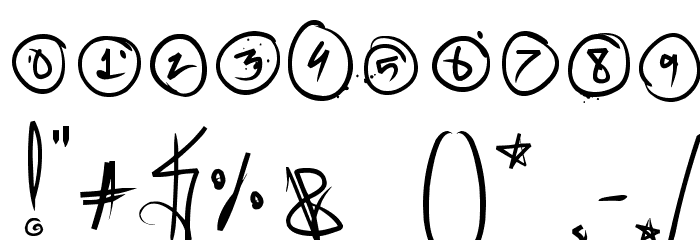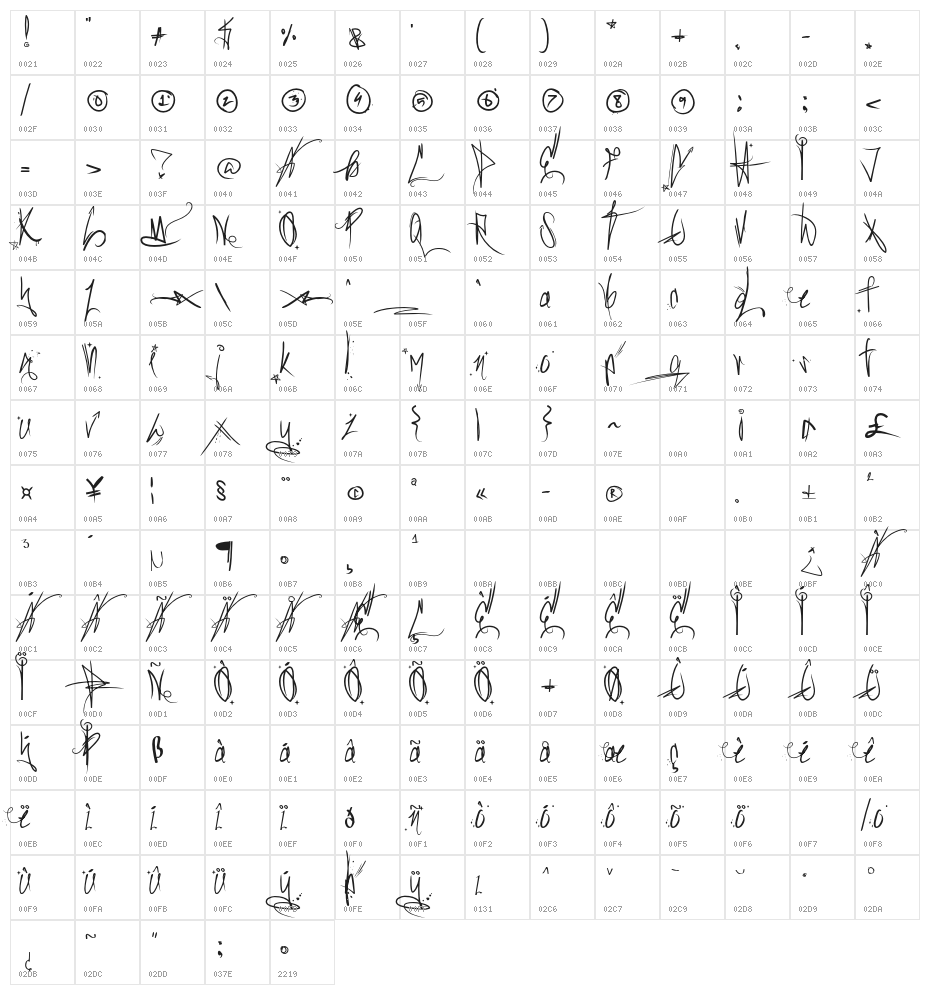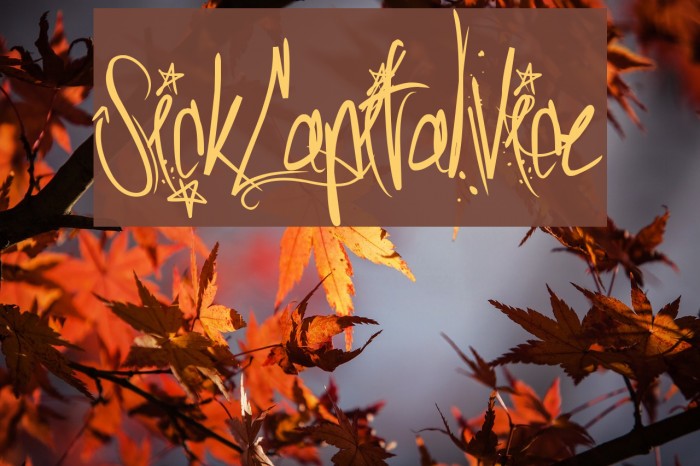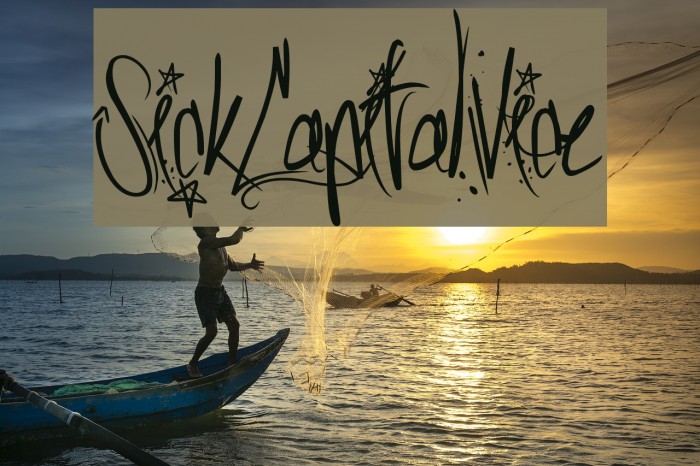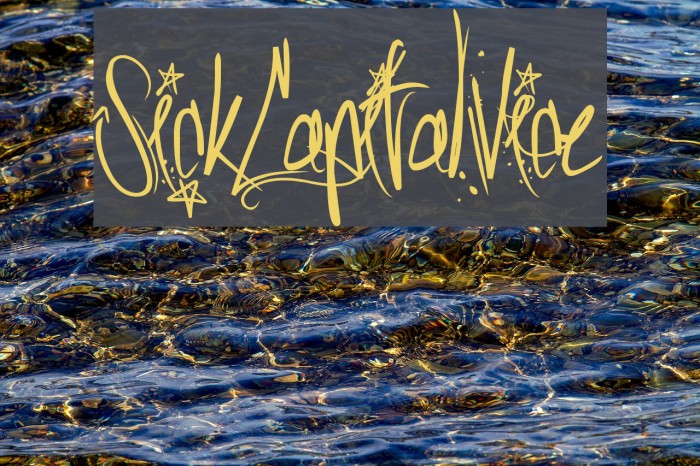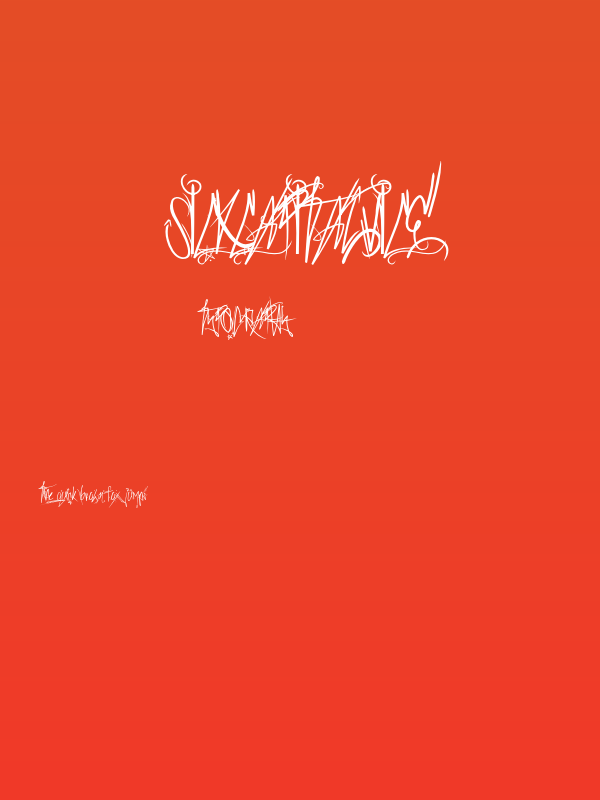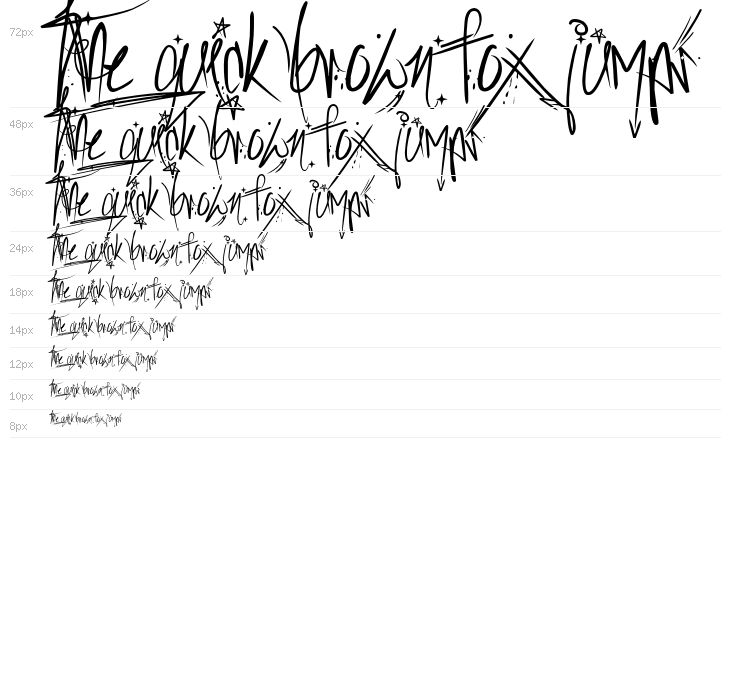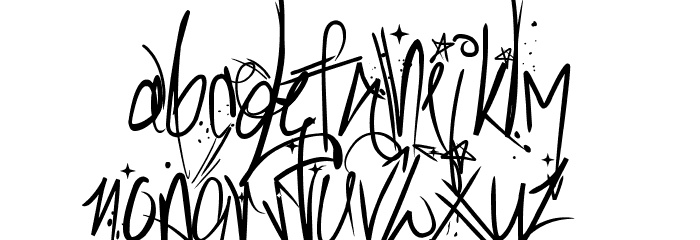
SickCapitalVice Font
SickCapitalVice Description
This font exudes a rebellious and edgy vibe, characterized by its chaotic and graffiti-inspired design. The letters are highly stylized with exaggerated curves and sharp angles, giving it a dynamic and energetic appearance. Each character is unique, with some incorporating star-like embellishments and splatters, enhancing the urban street art aesthetic. The numbers are enclosed in circles, adding a playful touch. This font is perfect for projects that aim to capture a sense of raw creativity and nonconformity.
Overall StyleUrban, Graffiti, Edgy
Use CaseLogos, Posters, Album Covers
Proposed ProjectsIdeal for street art designs, music album covers, urban-themed posters, and edgy branding projects.